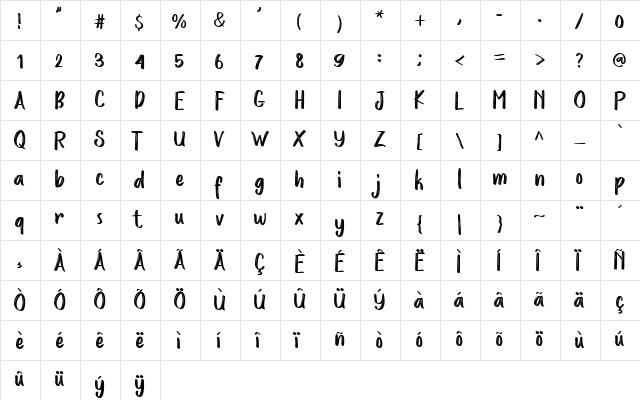
Love Story Rough Regular
| Foundry | Debut Studio |
| Designer | Ari Fadli (Debut Studio) |
Design Context for Love Story Rough Typeface
Love Story Rough embraces imperfection — its rough, textured character adds raw authenticity to designs that want to feel lived-in and unconventional.
Suited to punk-influenced zines, underground music branding, streetwear, and raw, anti-corporate design.
Pro Tip: Pair Love Story Rough with intentionally raw or lo-fi design elements. Fighting against it with overly polished surroundings will undermine its personality.